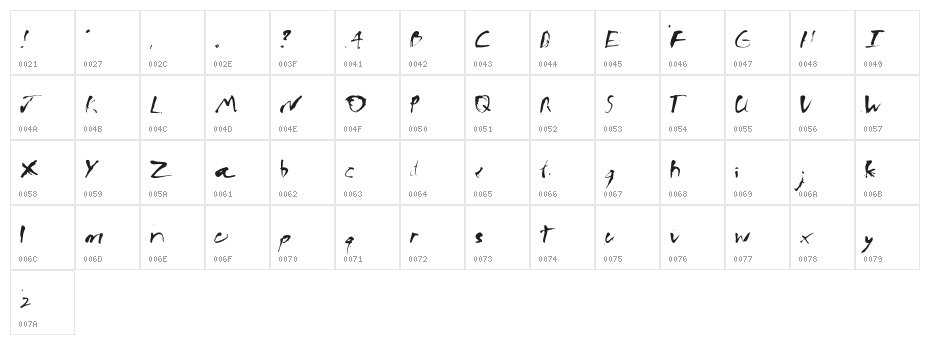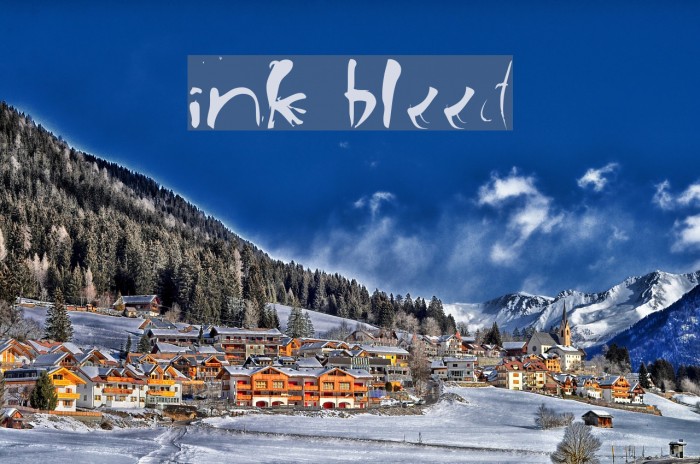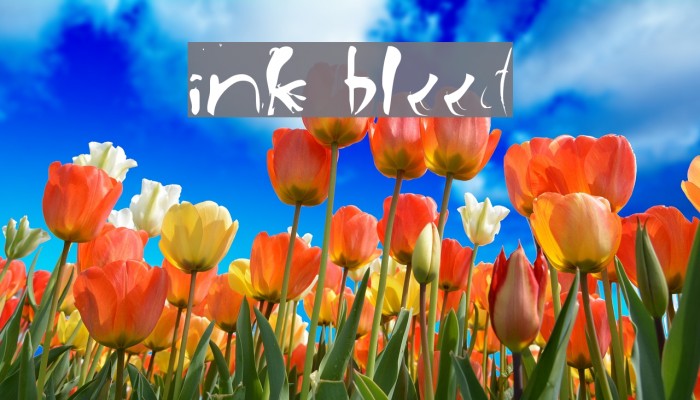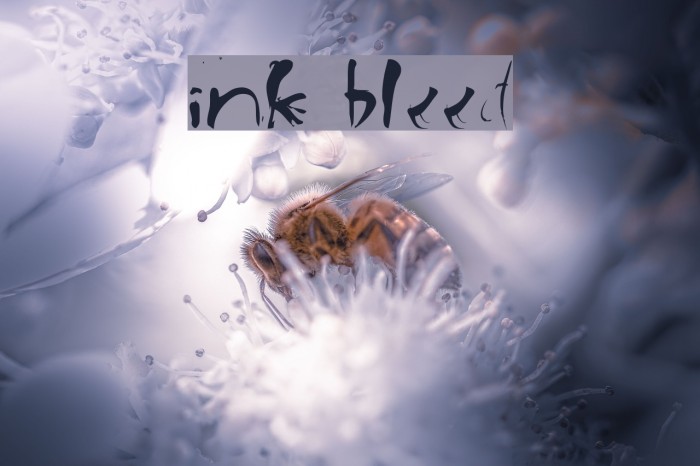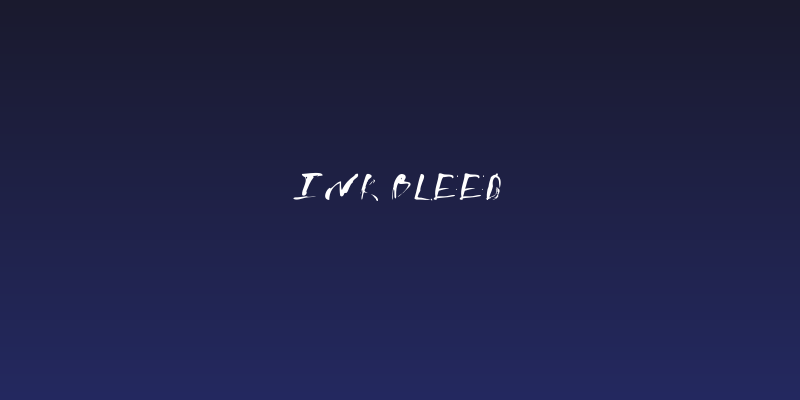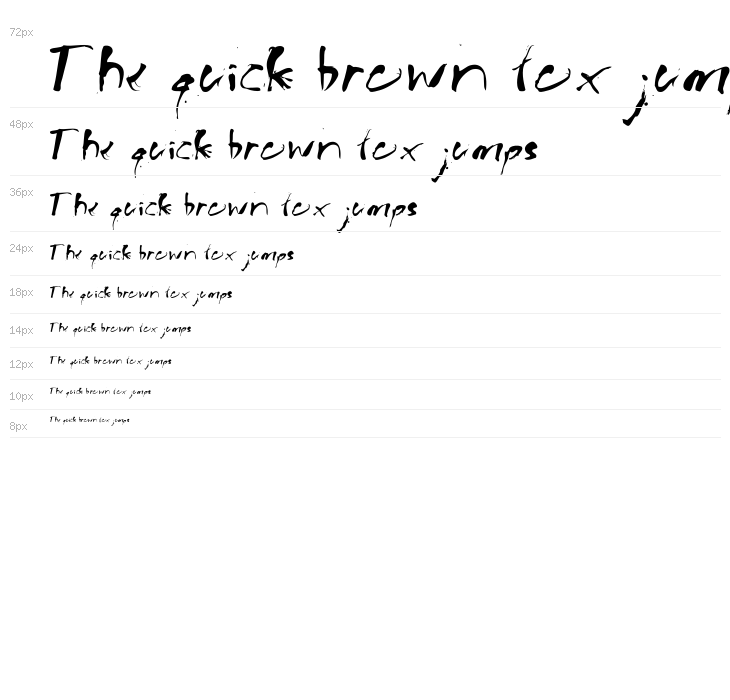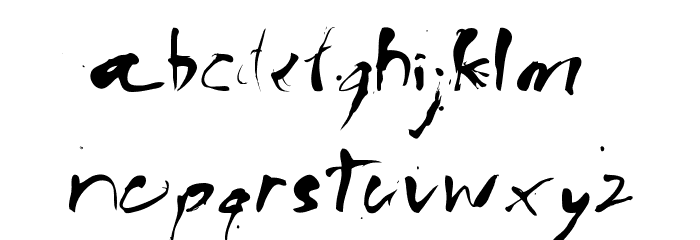
ink bleed Font
ink bleed Description
This font exudes a raw, expressive style reminiscent of ink bleeding on paper. The characters are irregular and dynamic, with strokes that vary in thickness, creating a sense of movement and energy. The uppercase letters are bold and assertive, while the lowercase letters maintain a more fluid and organic appearance. The overall aesthetic is artistic and unconventional, making it suitable for projects that require a touch of creativity and individuality. The font's unique character is further emphasized by the occasional splatter effect, adding to its handmade feel.
| Overall Style | Artistic, Expressive |
| Use Case | Headlines, Posters, Artistic Branding |
| Proposed Projects | Ideal for artistic projects, album covers, posters, and branding that seeks a creative and unique touch. |